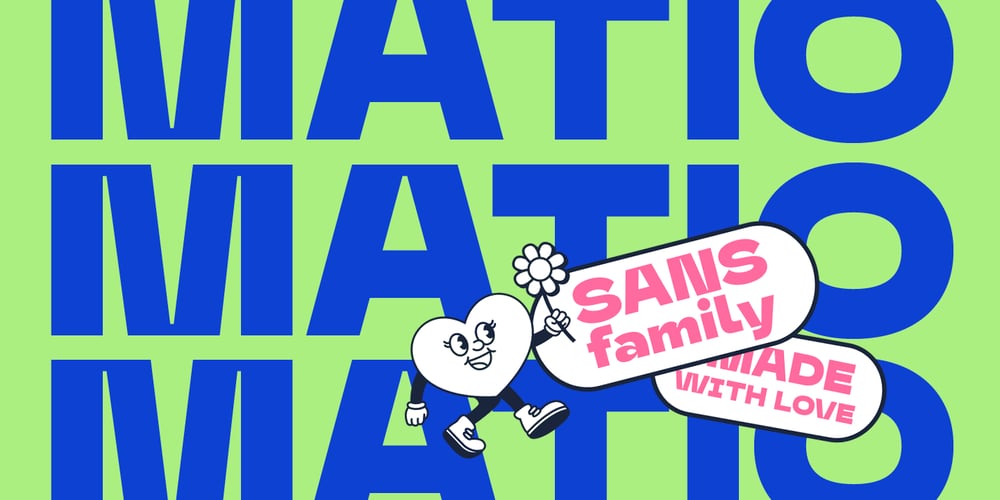
Matio Font Family was designed by Pavel Larin and published by Larin Type Co. Matio contains 14 styles and family package options. Mario This is a modern and vibrant San serif. The main task in creating this font was to create a modern, easy-to-read, universal and authentic font, and this task has been completed!This font includes 7 scales and italics to them. It looks great in headlines and small texts, will perfectly cope with a variety of typographic tasks and will always look stylish and modern.